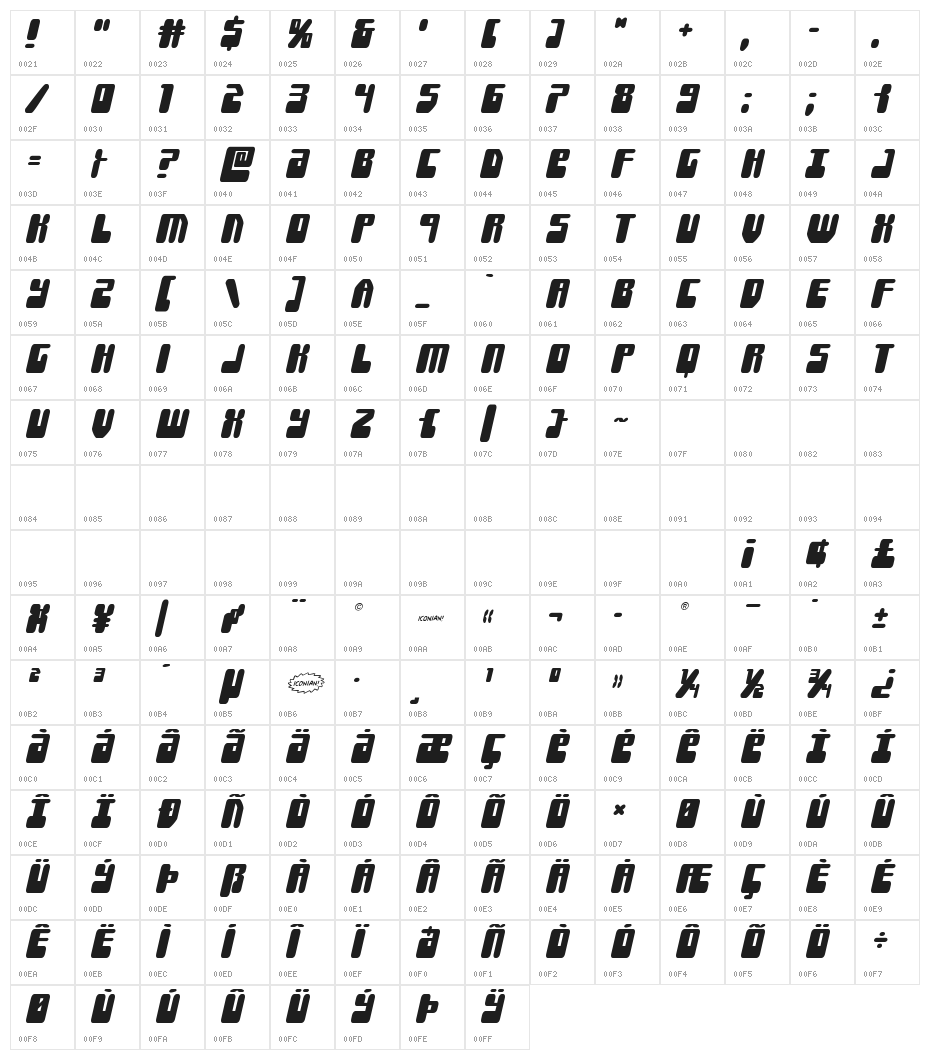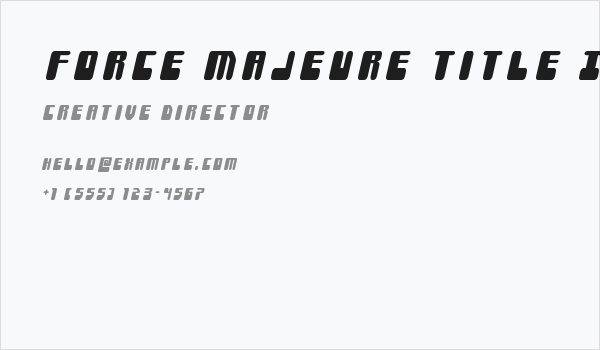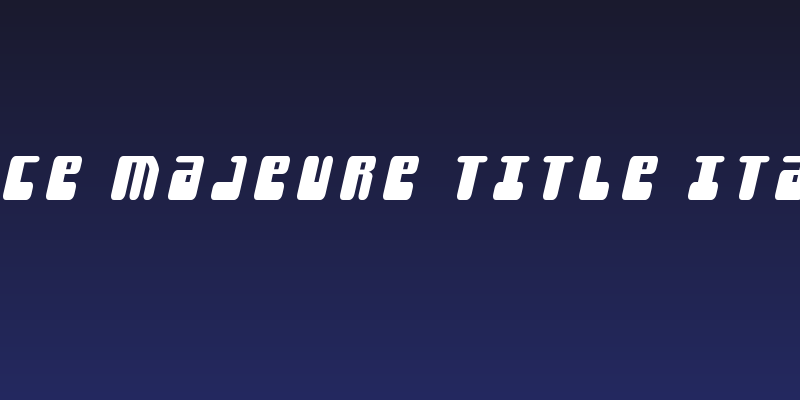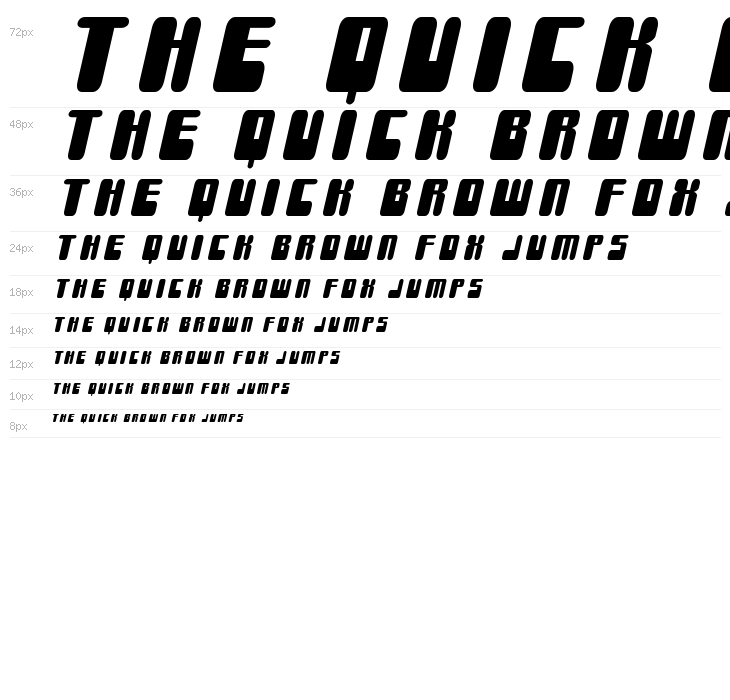
Force Majeure Title Italic Font
Force Majeure Title Italic Description
This font features a bold and dynamic style with a distinct italic slant, giving it a sense of motion and energy. The characters are blocky and robust, with a modern aesthetic that combines sharp angles and smooth curves. The uppercase and lowercase letters maintain a consistent style, with a slight variation in size and shape to distinguish them. The numerals are equally bold, ensuring readability and impact. Special characters are designed to match the overall aesthetic, providing a cohesive look across all elements. The font's strong presence makes it suitable for attention-grabbing designs.
| Proposed Projects | Ideal for sports branding, dynamic posters, modern logos, and eye-catching headlines. |